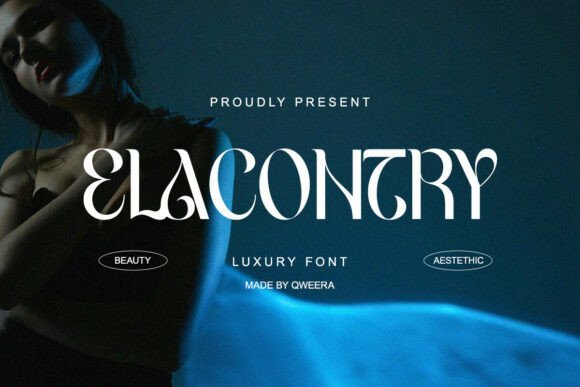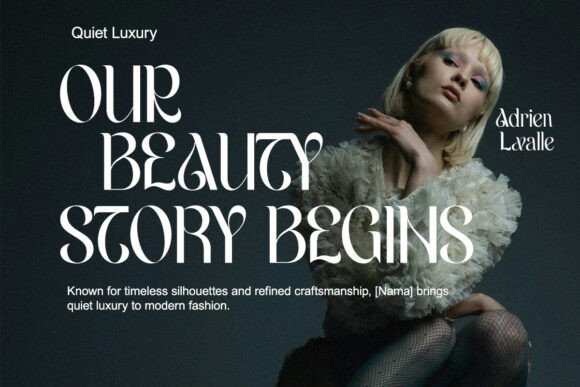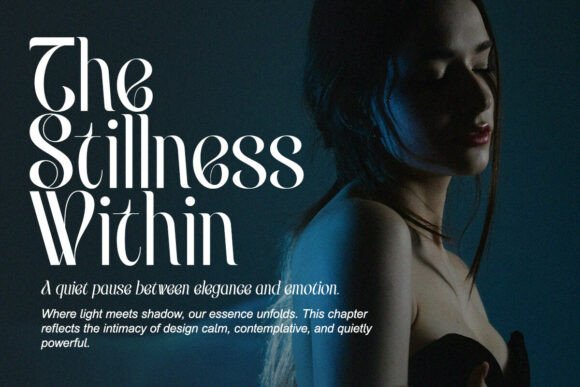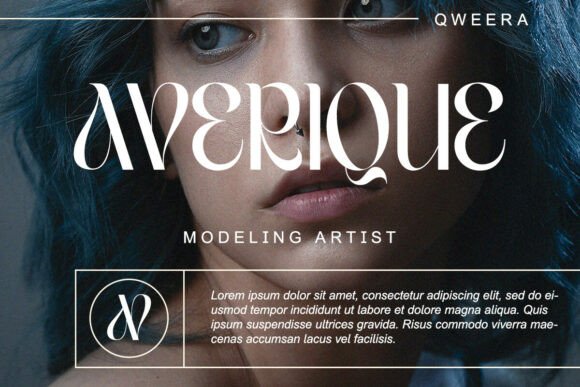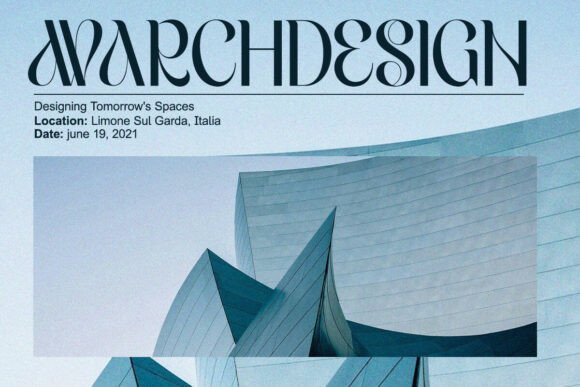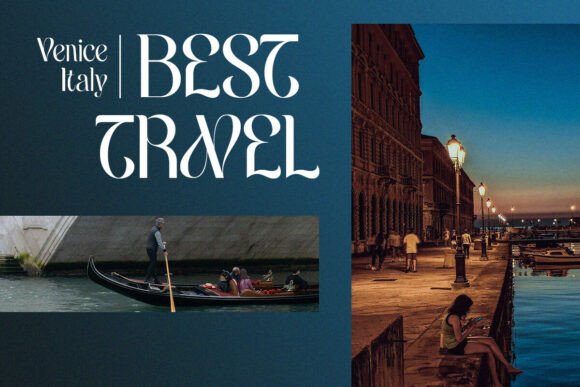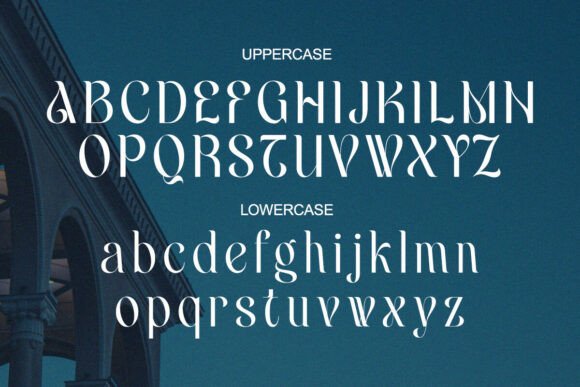
Unlock the Secret to Timeless Elegance: Elacontry Font
Have you ever stared at a blank canvas, waiting for the perfect font to bring your design to life? That moment of creative paralysis is a familiar feeling for many designers. But what if you could tap into a font that exudes luxury, sophistication, and modern charm? Enter the Elacontry Font, a game-changing serif font that elevates your work to new heights.
Designed to make a statement, the Elacontry Font is the perfect blend of bold and elegant, with unique character shapes and high-contrast details that add depth and visual interest to your designs. Whether you’re creating a luxury fashion brand, a beauty editorial, or a wedding invitation, this font is sure to turn heads and define prestige. For designers who crave beauty, luxury, and contemporary charm in one serif font, the Elacontry Font is the ultimate solution.
Elacontry Font Key Features
- Size: The font family includes 6 weights (Thin, Light, Regular, Medium, Bold, Black) and 3 styles (Italic, Oblique, Roman), providing flexibility for various design applications.
- Unique Characteristics: This font features a unique blend of modern and vintage elements, with intricate details and subtle texture, creating a distinctive and eye-catching visual identity.
- Scalability: The font’s design ensures it remains legible and visually appealing across various font sizes, from small captions to large headlines, making it suitable for a wide range of design applications.
Elacontry Font Review
I recently had the chance to work with the Elacontry font, and I must say it’s a unique and intriguing typeface. ✨ Here are a few things that stood out to me:
- ✨ The Elacontry font has a beautiful, modern aesthetic with clean lines and an open feel.
- ✨ The font is highly legible, even at smaller sizes, making it suitable for a wide range of applications.
- ✨ The font’s subtle flair and personality add a touch of sophistication to any design.
However, as with any font, there are some limitations to consider:
- ⚠️ The Elacontry font may not be suitable for text-heavy designs, as its open feel can make it difficult to read large blocks of text.
- ⚠️ The font’s unique aesthetic may not be to everyone’s taste, and it may not be the best choice for more conservative or traditional designs.
Overall, I was impressed with the Elacontry font’s potential and versatility. While it may not be the perfect choice for every design, it’s certainly a great option for modern and creative projects. With some careful consideration and planning, I think the Elacontry font could be a valuable addition to any designer’s toolkit.
Elacontry Font: A Practical Application Guide
Tips for Getting the Most Out of Elacontry Font
Experiment with different font sizes, colors, and styles to create visually appealing designs. Use Elacontry Font in combination with other fonts to add depth and variety to your text.
Elacontry Font is ideal for creative projects such as branding, packaging, and advertising. It’s also great for use in digital media, including social media graphics and websites.
Alternatives to Elacontry Font for Designers
Playfair Display is a luxurious serif font ideal for headings, titles, and other high-impact text. It’s perfect for designers who want to add a touch of elegance to their designs. Compared to Elacontry Font, Playfair Display is more ornate and sophisticated, making it suitable for formal and high-end projects.
Pacifico is a beautiful script font perfect for creating a sense of relaxation and calmness. It’s ideal for designers who want to add a touch of personality to their designs. Compared to Elacontry Font, Pacifico is more cursive and flowing, making it suitable for projects that require a softer, more approachable tone.